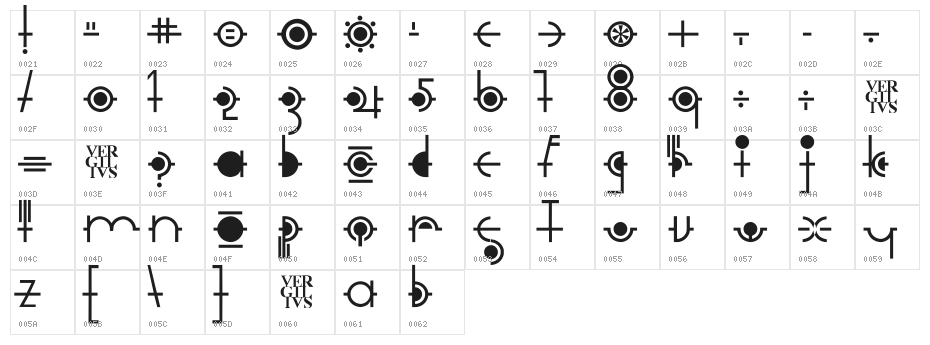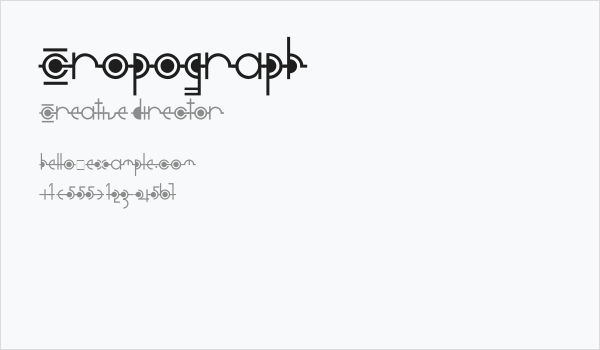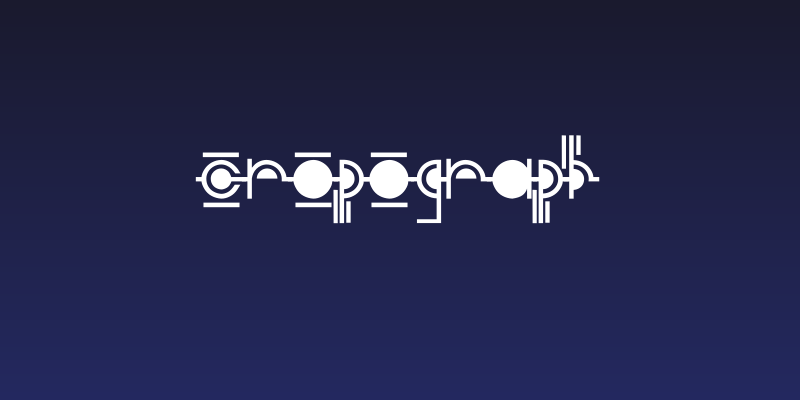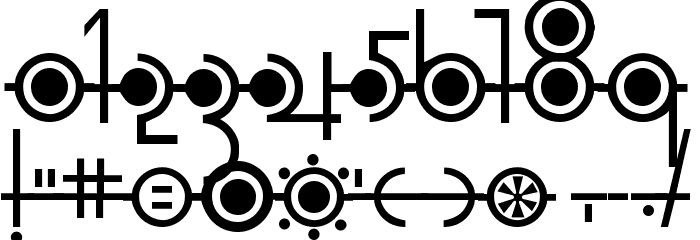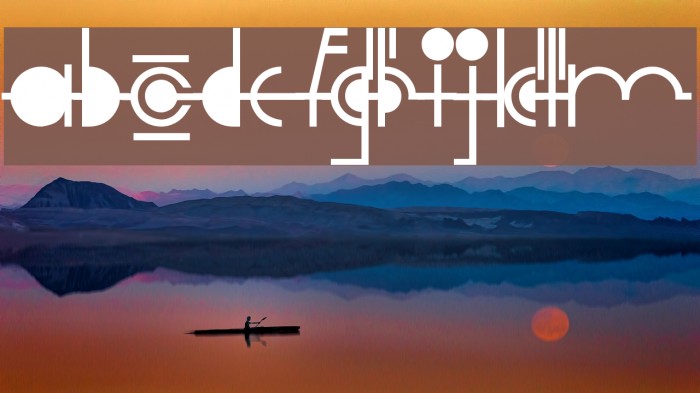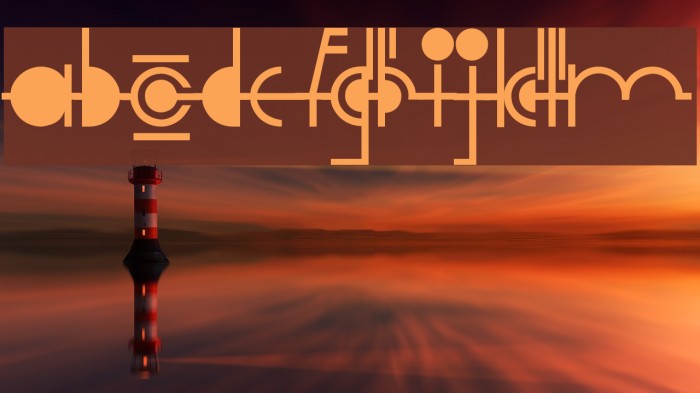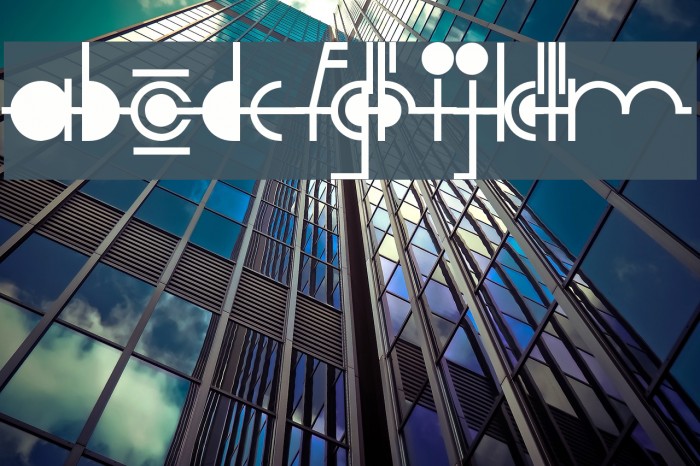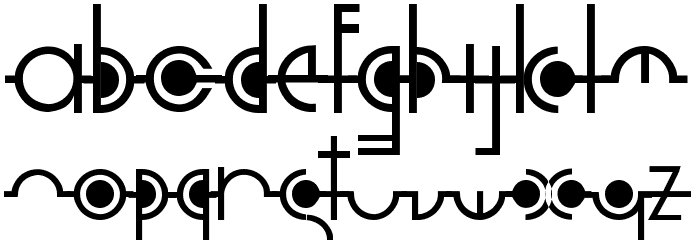
Cropograph Font
| Gesamtstil | Futuristic, Artistic |
| Anwendungsfall | Logos, Headlines, Artistic Projects |
| Vorgeschlagene Projekte | Ideal for artistic posters, album covers, digital art projects, and futuristic branding. |